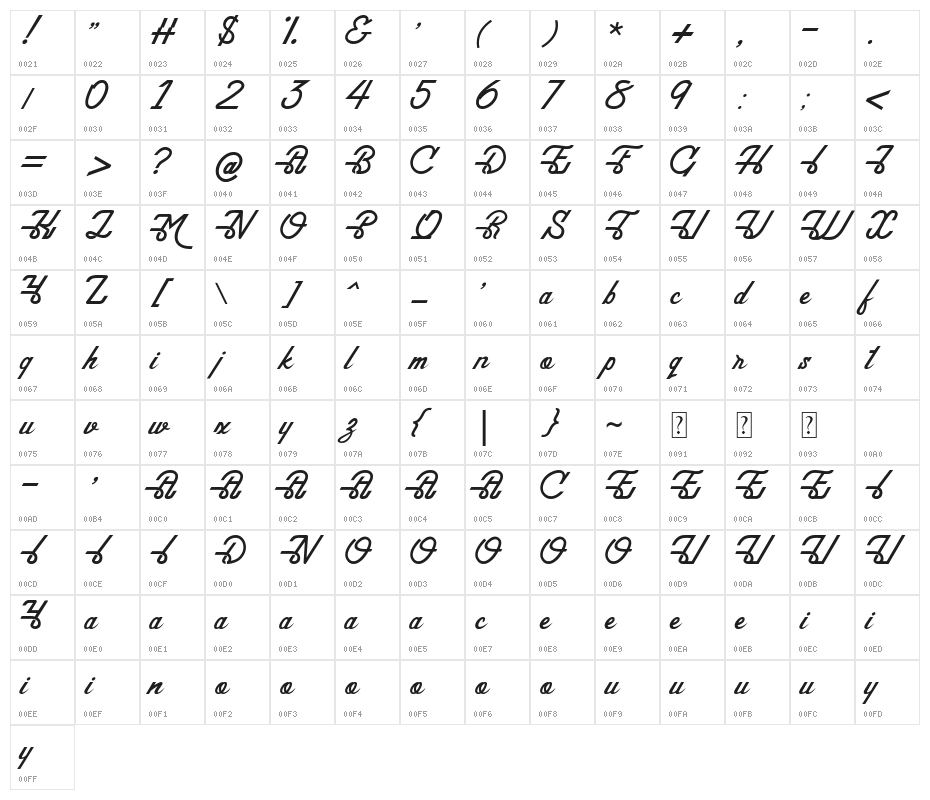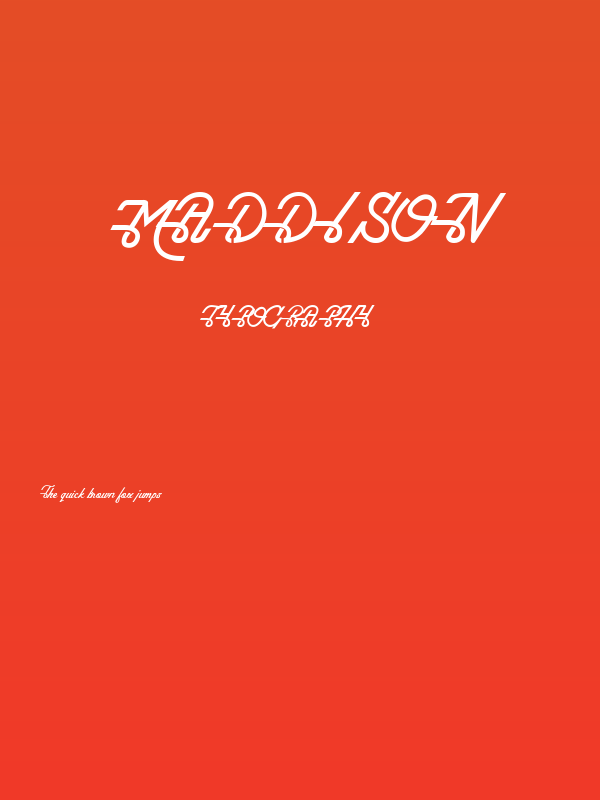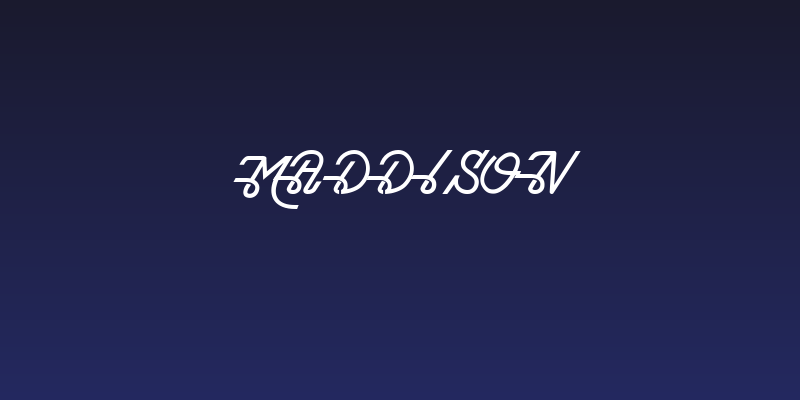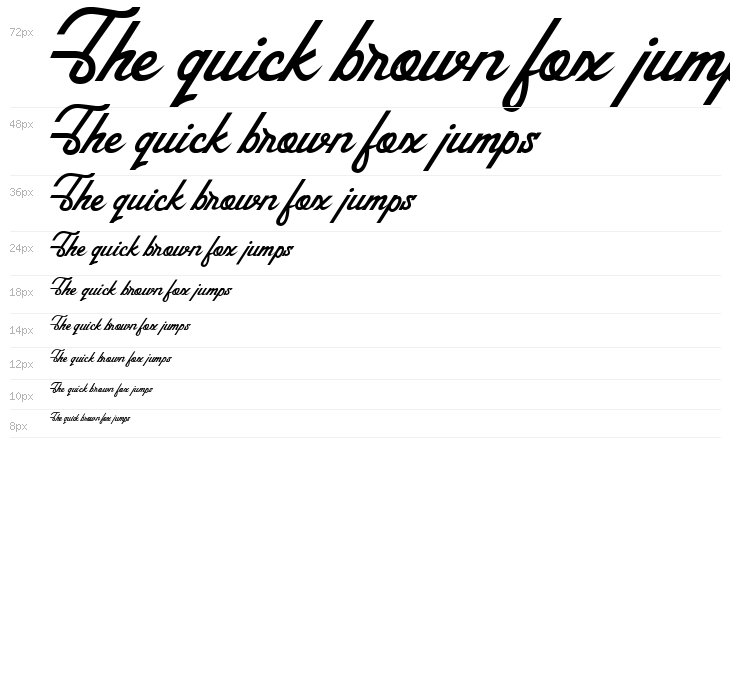
Maddison Font
Maddison Description
This font features a dynamic and elegant script style with a flowing, cursive design. The uppercase letters are characterized by their intricate loops and swashes, giving them a sophisticated and ornate appearance. The lowercase letters maintain a smooth and connected flow, enhancing readability while retaining a stylish flair. The numerals are consistent with the script style, offering a cohesive look across all characters. Special characters are designed with the same attention to detail, ensuring they blend seamlessly with the overall aesthetic. This font's design is both classic and modern, making it versatile for various applications.
Overall StyleElegant, Classic
Use CaseLogos, Invitations, Branding
Proposed ProjectsIdeal for wedding invitations, elegant branding, greeting cards, and upscale packaging.